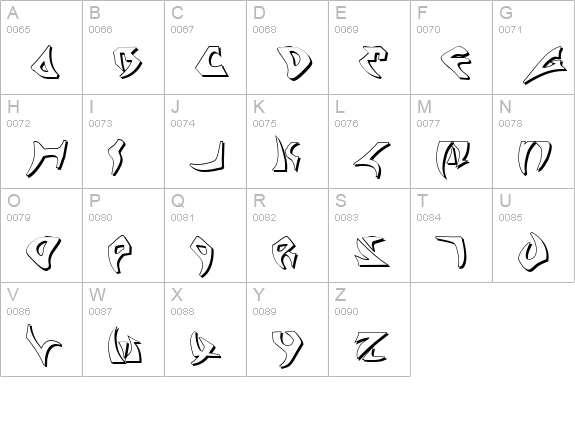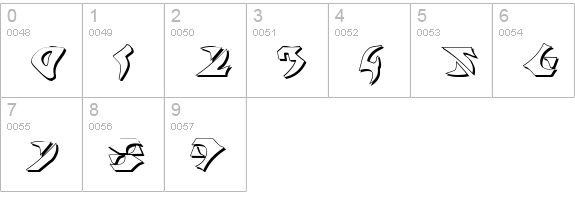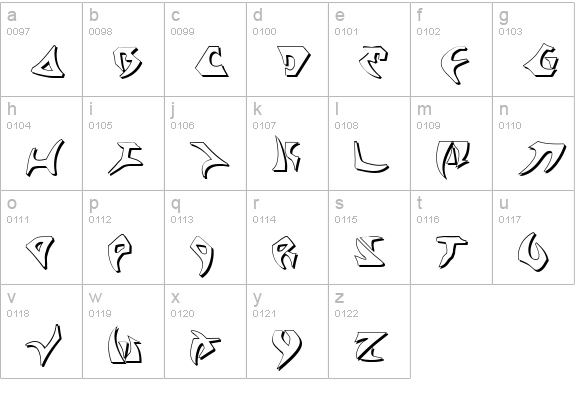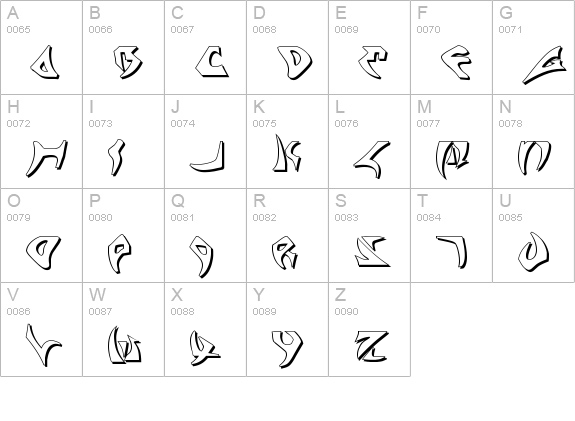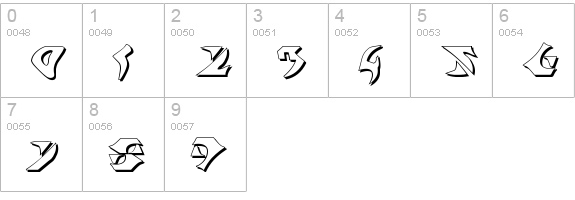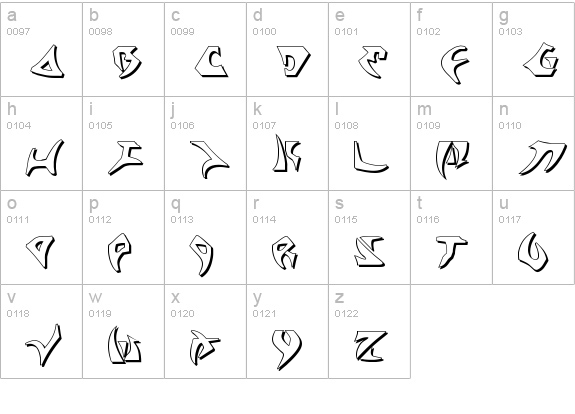
Kahless Shadow Font Details
Introducing Kahless Shadow font, a stunning display typeface that exudes an air of mystery and elegance. This captivating font is perfect for adding a touch of intrigue and sophistication to your creative projects. Kahless Shadow showcases a unique blend of sharp edges and delicate curves, creating a mesmerizing visual appeal that truly sets it apart. Its intricate design captures the essence of shadows, casting a spellbinding effect on any piece of text it graces. This font is not only visually striking, but it also offers versatility and flexibility. Whether you're designing a logo, branding materials, or even a poster, Kahless Shadow can adapt effortlessly to any project, enhancing its overall aesthetic appeal. One of the most remarkable aspects of Kahless Shadow font is that it is available free of charge. Yes, you heard it right – this exceptional typeface can be easily downloaded at FontsMarket.com, making it accessible to designers and creatives who are looking for a high-quality font without breaking the bank. With its wide range of characters, including uppercase and lowercase letters, numerals, and punctuation marks, Kahless Shadow provides all the tools you need to create visually stunning and unique designs. Its smooth and seamless glyphs ensure a flawless appearance on any screen or print medium. Whether you're a professional designer or a hobbyist, Kahless Shadow font is a must-have in your font library. Its captivating aesthetics, combined with its accessibility and versatility, make it an excellent choice for a variety of projects. Add a touch of intrigue and elegance to your designs with Kahless Shadow font. Download it for free today at FontsMarket.com and elevate your creative endeavors to a whole new level.